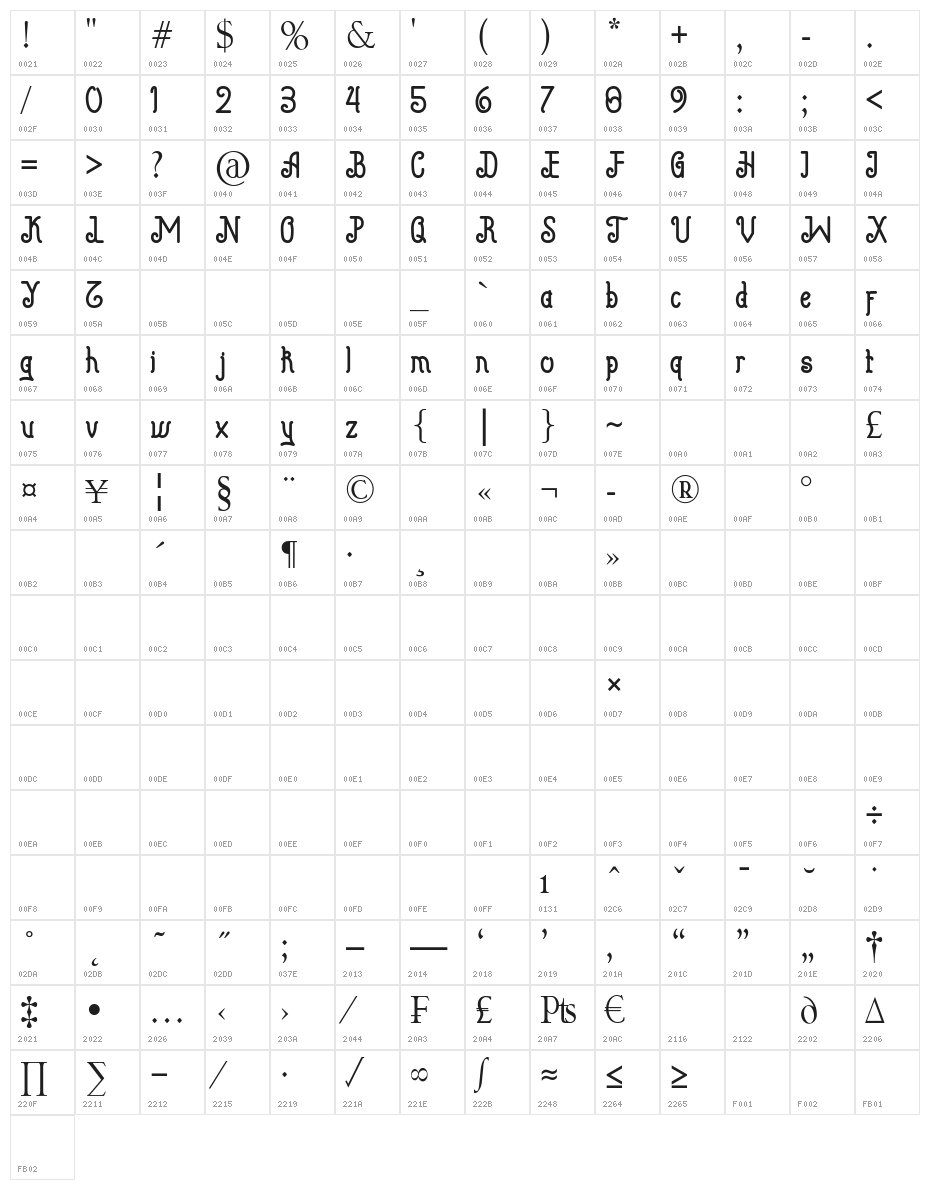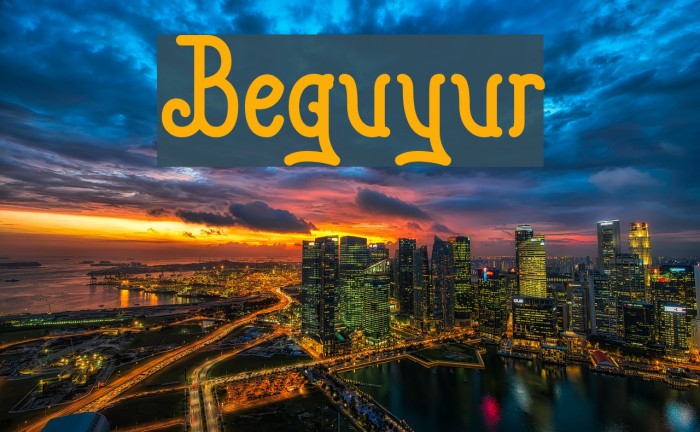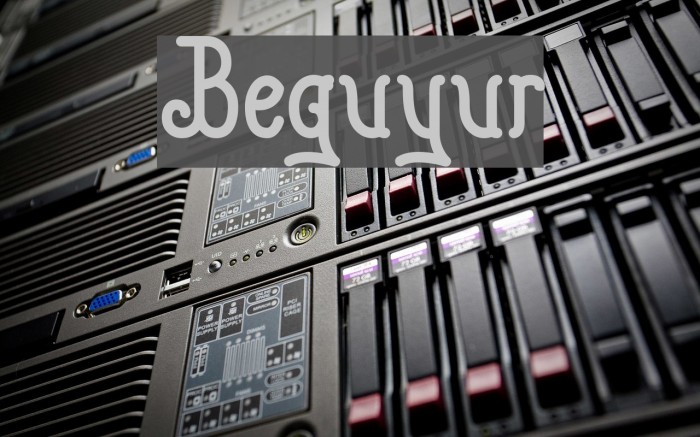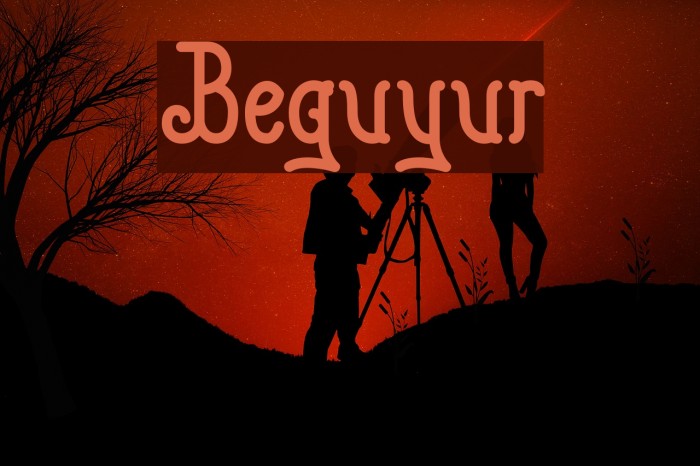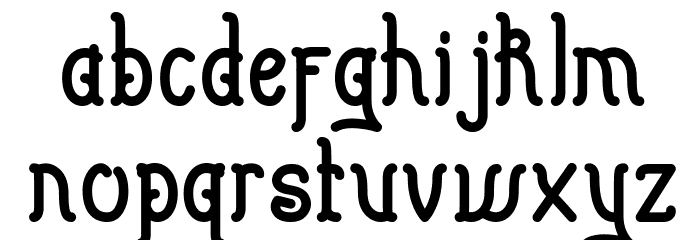
Beguyur Font
Beguyur Description
This font features a playful and decorative style with a unique twist on traditional serif elements. Each character is adorned with subtle curls and loops, giving it a whimsical and artistic flair. The uppercase letters are bold and prominent, while the lowercase letters maintain a consistent style with slightly exaggerated serifs. Numbers and special characters follow the same decorative theme, ensuring a cohesive look across all text. The font's design is both eye-catching and legible, making it suitable for creative projects that require a touch of elegance and fun.
| Use Case | Headlines, Logos, Invitations |
| Proposed Projects | Ideal for invitations, greeting cards, children's books, and playful branding projects. |